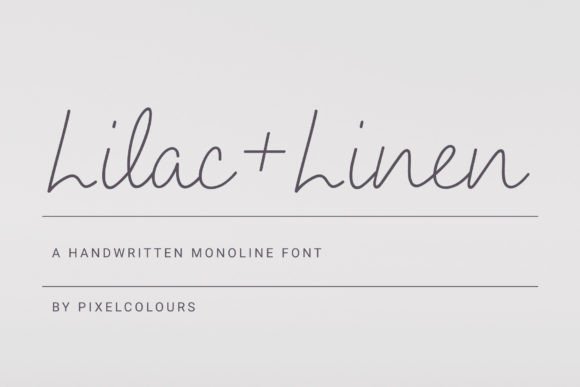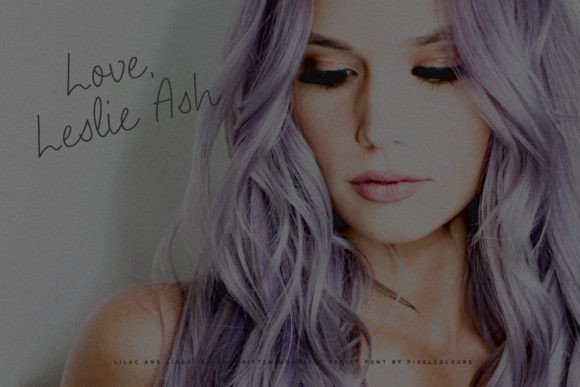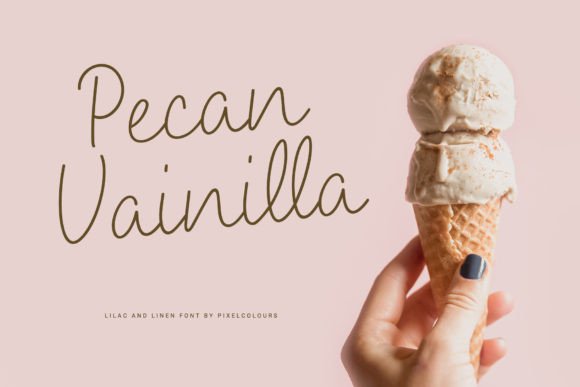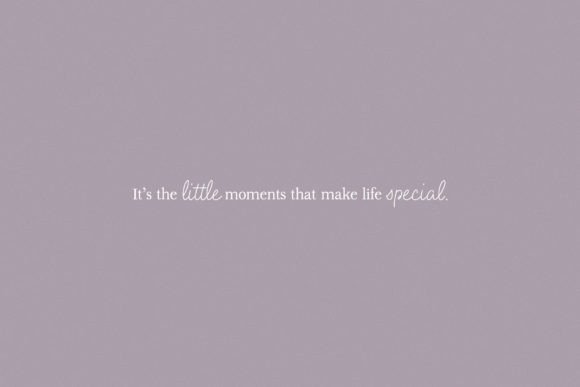
Lilac and Linen Font
About the Lilac and Linen Font
The wait is over! The incredible Lilac and Linen Font is now available for your design toolkit. Lilac and Linen is a chic handwritten monoline script font that has clean and flowing lines. Includes automatic ligatures and stylistic alternates to make it look as a natural handwriting. Looks great for product and pantry labels, stickers, branding, social media posts, quotes, etc.
Its elegant yet approachable style makes it ideal for branding projects needing a touch of sophistication, particularly those related to fashion, beauty, food, or stationery. It excels in headlines, short quotes, and logos, adding a handwritten charm without sacrificing readability. Avoid using Lilac and Linen for large blocks of text or UI elements; its script nature compromises legibility in extended passages.
Pair it with a clean sans-serif like Montserrat for a modern contrast, or a subtle serif like Lato for a more classic feel. For a playful touch, consider a geometric sans-serif like Futura. These pairings provide structural support, balancing the fluidity of the script.
Lilac and Linen projects a sophisticated yet friendly personality, conveying a sense of handcrafted quality and understated elegance. It’s best suited for brands that prioritize style and a personal connection with their audience.
Lilac and Linen Font Usage Examples
Lilac and Linen Font Example